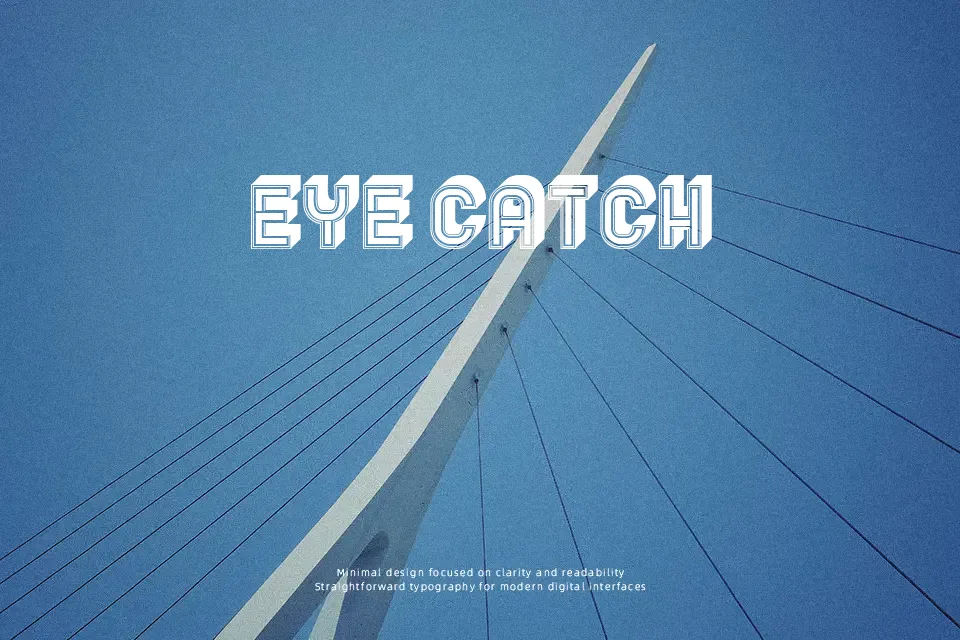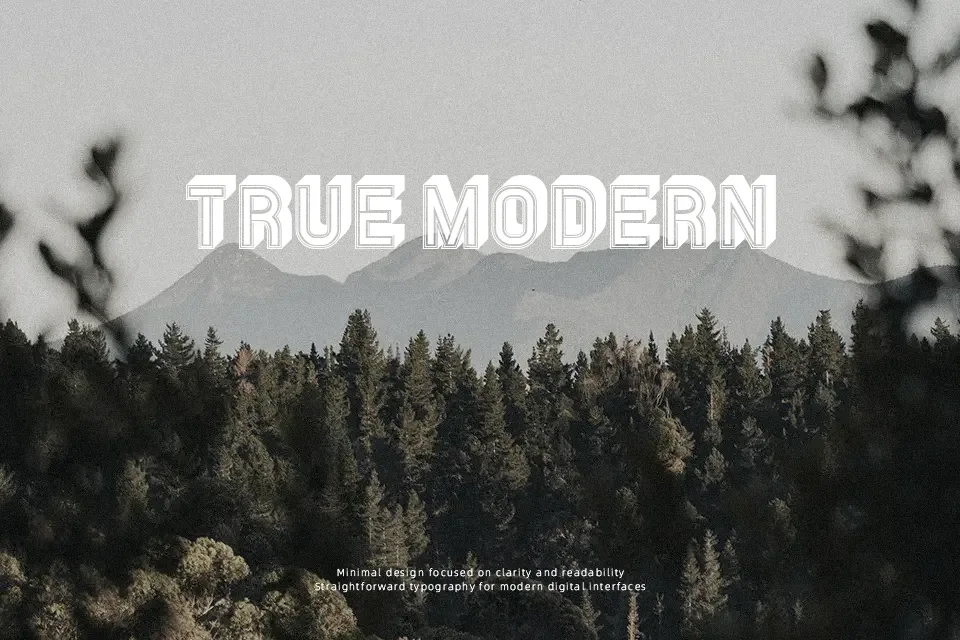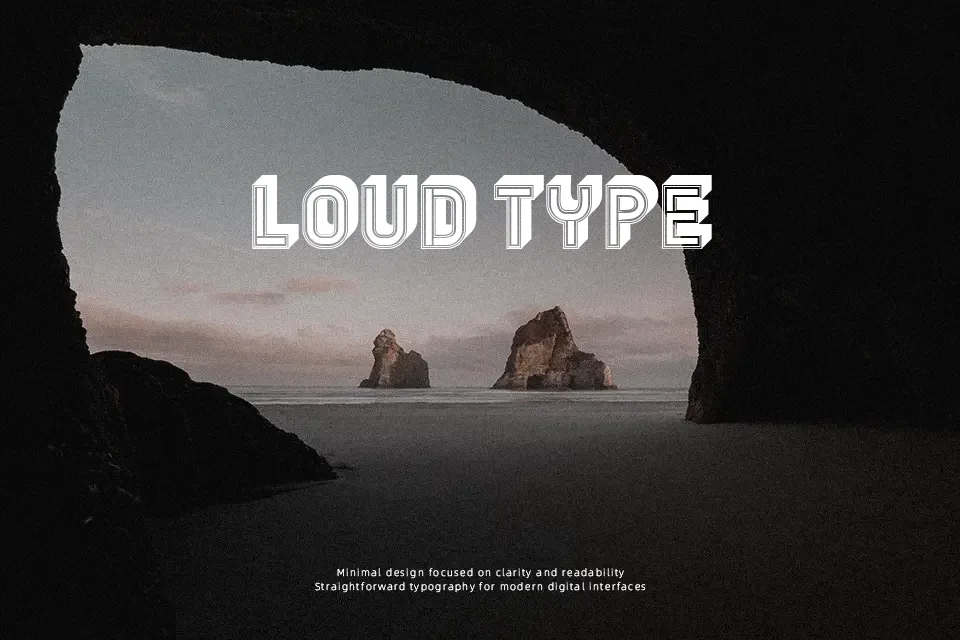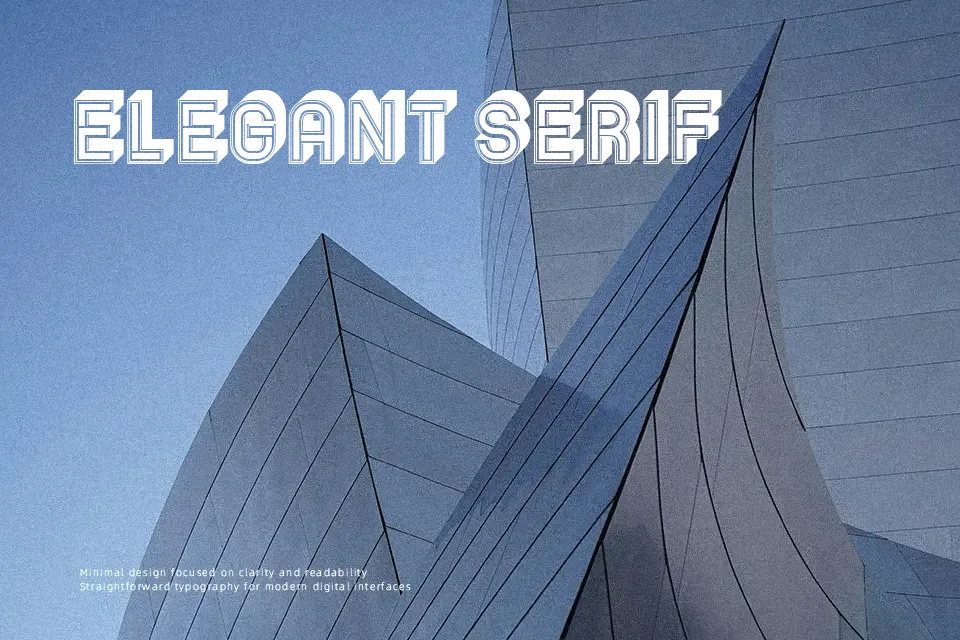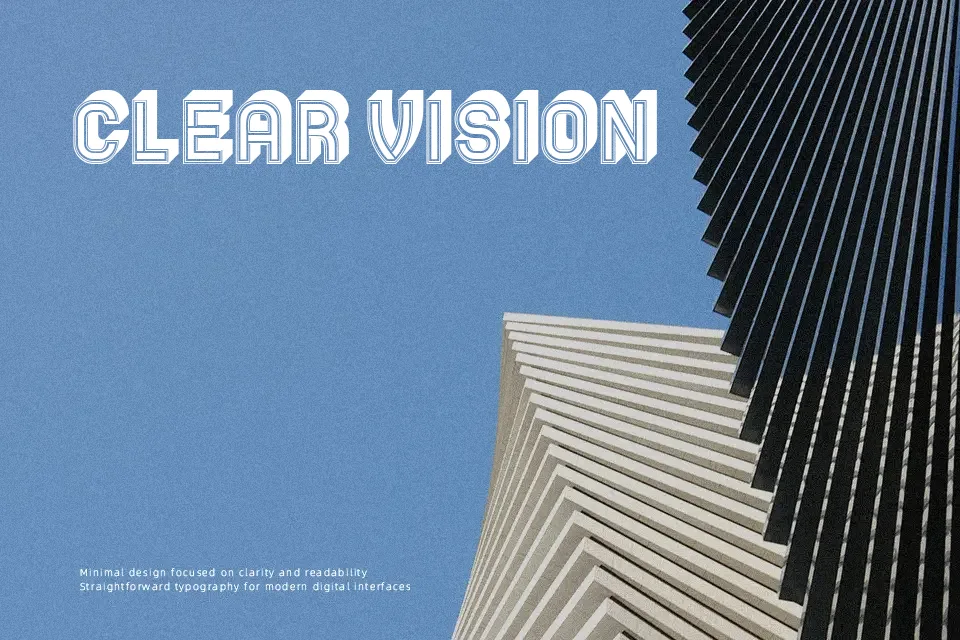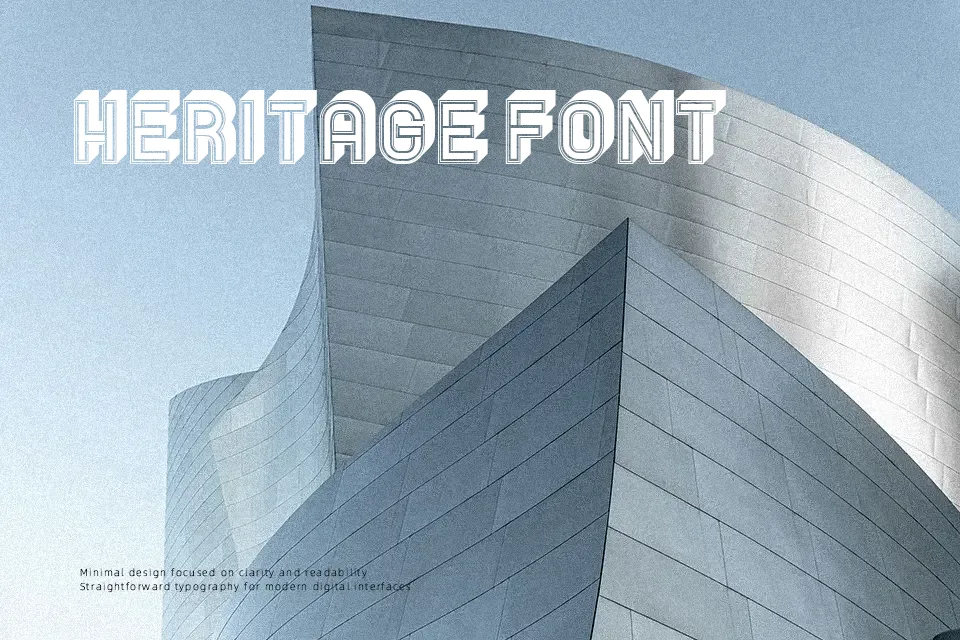
Ural Font
Ural Font features a decorative display design characterized by heavy, structured strokes, balanced character spacing, and uniform proportions across its glyph set. The generous weight and angular contours deliver strong visual impact in short text arrangements, making the typeface well suited for prominent poster headers, branding concepts, and product packaging. At headline scale, the letterforms remain distinct and readable against varied backgrounds. However, the bold geometry and tight internal counters reduce visual clarity when rendered at smaller sizes. Consequently, the typeface is not ideal for continuous reading or dense body paragraphs.
poster headlines
product packaging
apparel graphics
event branding
small caption copy
mobile interface labels
Perfect for branding, headline, and packaging, with a bold and decorative style.